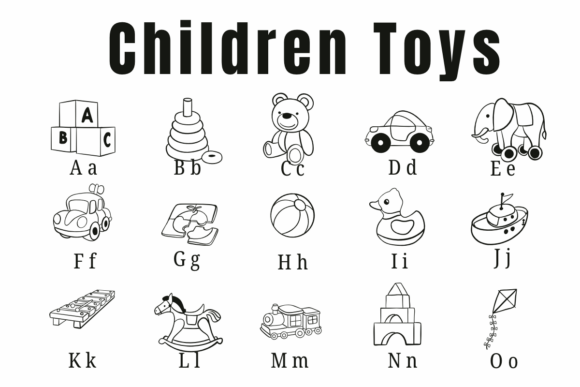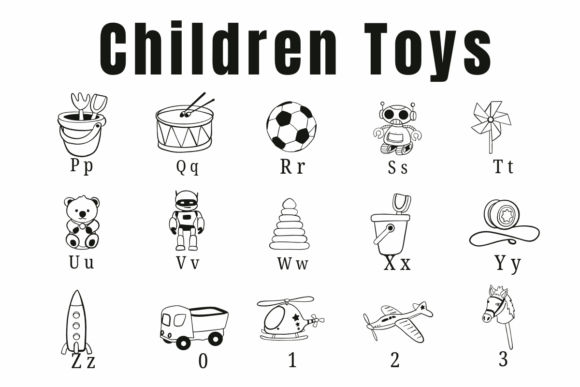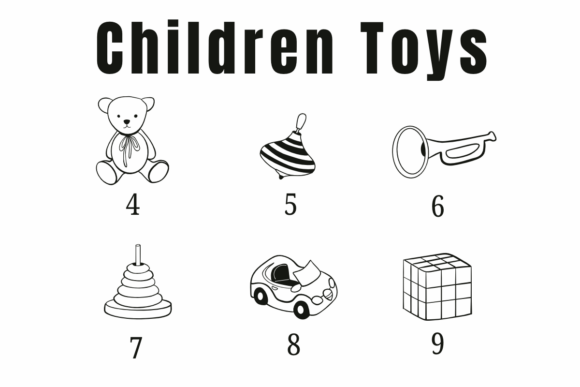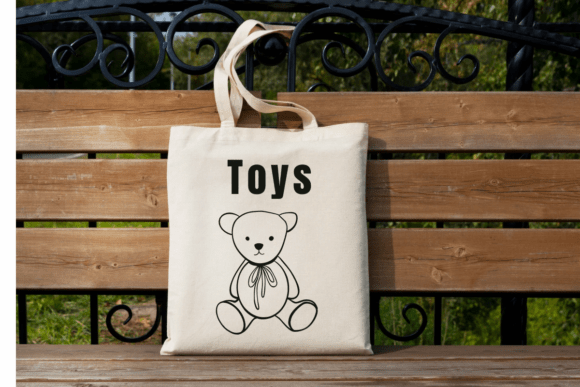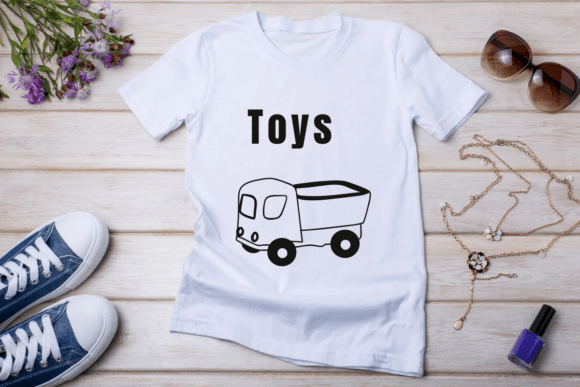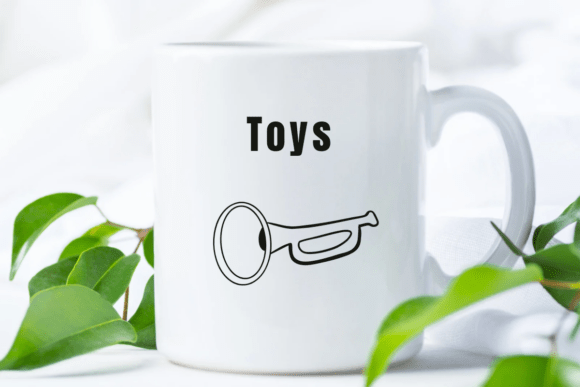
Introducing Children Toys Font: A Playful Dingbats Font for Creative Projects
Are you a designer, crafter, or DIY enthusiast looking for a unique and playful font to enhance your creative projects? Look no further than the Children Toys Font, a delightful dingbats font that is sure to bring a smile to your face. In this article, we’ll explore the features and benefits of this charming font, and show you how it can be used to take your creative projects to the next level.
What is Children Toys Font?
Children Toys Font is a dingbats font that features a playful theme, perfect for adding a touch of whimsy to your designs. The font is made up of a wide range of characters, including toys, objects, and symbols that are sure to delight kids and adults alike. With its fun and carefree vibe, this font is ideal for a variety of creative projects, from wedding invitations and DIY crafts to decorations, logos, and more.
Key Features of Children Toys Font
- Playful theme: The Children Toys Font features a playful theme that is sure to add a touch of fun to your designs.
- Dingbats characters: The font includes a wide range of dingbats characters, including toys, objects, and symbols.
- Versatile: The Children Toys Font can be used for a wide range of creative projects, from wedding invitations and DIY crafts to decorations, logos, and more.
Creative Ways to Use Children Toys Font
The Children Toys Font is a versatile font that can be used in a wide range of creative projects. Here are a few ideas to get you started:
- Wedding invitations: Add a touch of whimsy to your wedding invitations with the Children Toys Font. Use it to create custom illustrations, borders, and other design elements.
- DIY crafts: The Children Toys Font is perfect for DIY crafts, such as making custom signs, banners, and other decorations.
- Decorations: Use the font to create custom decorations, such as garlands, banners, and other decorative elements.
- Logos: The Children Toys Font can be used to create custom logos for businesses, events, and other projects.
Benefits of Using Children Toys Font
There are many benefits to using the Children Toys Font in your creative projects. Here are a few:
- Adds a touch of whimsy: The font adds a touch of whimsy and playfulness to your designs, making them more engaging and fun.
- Versatile: The font can be used for a wide range of creative projects, making it a great addition to your design toolkit.
- Unique: The Children Toys Font is a unique font that will help your designs stand out from the crowd.
Tips for Using Children Toys Font
Here are a few tips for using the Children Toys Font in your creative projects:
- Experiment with different colors: The font looks great in a variety of colors, so don’t be afraid to experiment and find the perfect color scheme for your project.
- Use it sparingly: While the font is fun and playful, it can be overwhelming if used too much. Use it sparingly to add a touch of whimsy to your designs.
- Pair it with other fonts: The Children Toys Font pairs well with other fonts, so don’t be afraid to experiment with different font combinations.
The Children Toys Font is a playful dingbats font that is perfect for adding a touch of whimsy to your creative projects. With its wide range of characters, ease of use, and versatility, this font is sure to become a favorite among designers and crafters. Whether you’re working on a wedding invitation, DIY craft, or logo, the Children Toys Font is a great choice. So why wait? Download the Children Toys Font today and start adding a touch of playfulness to your designs!